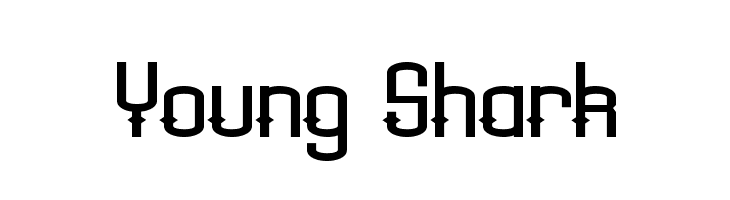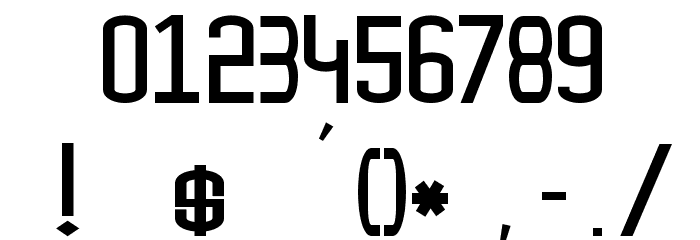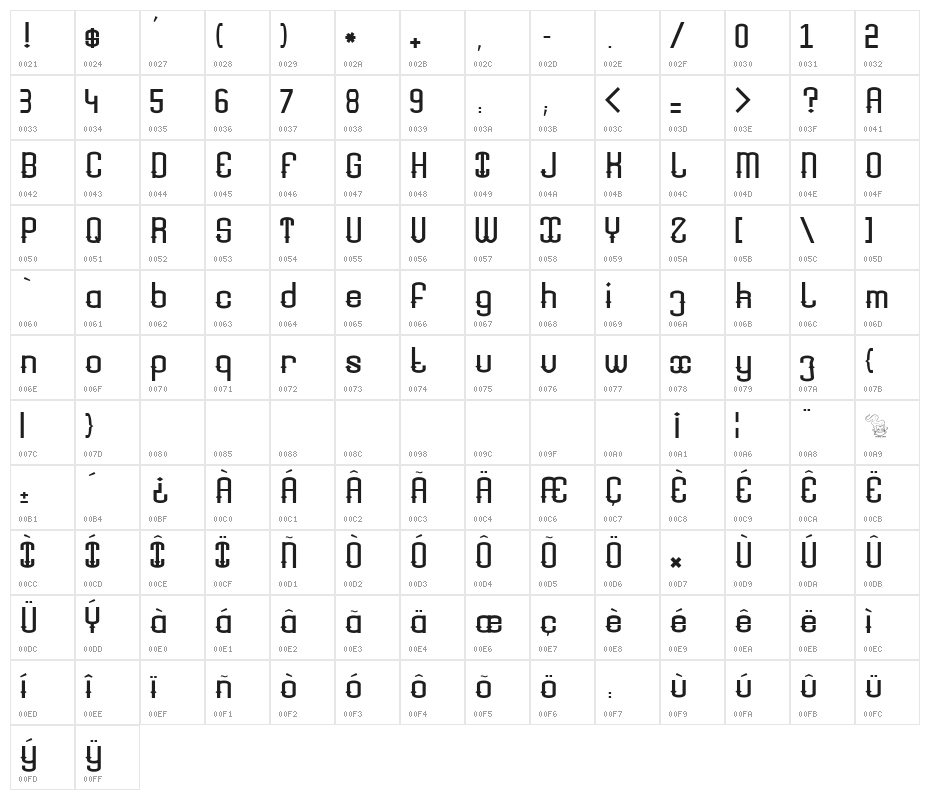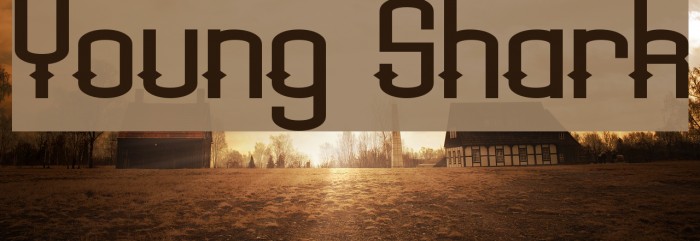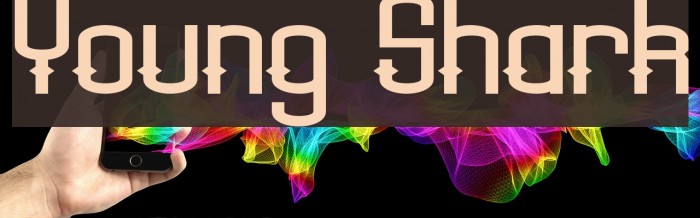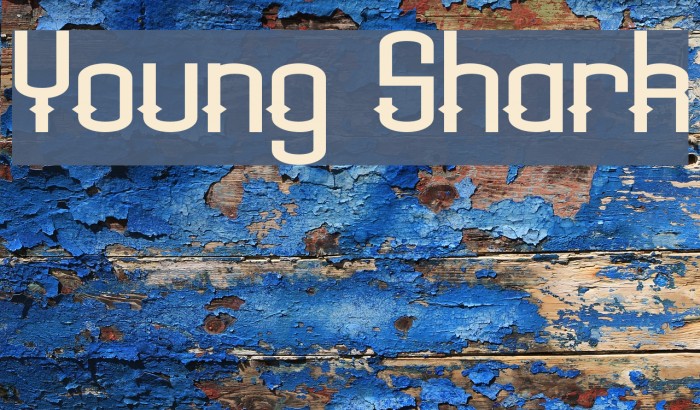
Young Shark Font
Young Shark Description
This font features a bold and distinctive style with unique geometric elements. The characters have a modern, industrial feel, characterized by sharp angles and consistent stroke widths. The uppercase letters are particularly striking, with a strong presence that makes them ideal for attention-grabbing headlines. The lowercase letters maintain the same geometric style, ensuring consistency throughout the typeface. Numbers and special characters are designed to match the overall aesthetic, providing a cohesive look. The font's design is both functional and decorative, making it versatile for various creative projects.
| Proposed Projects | Ideal for branding, posters, and modern design projects that require a strong visual impact. |